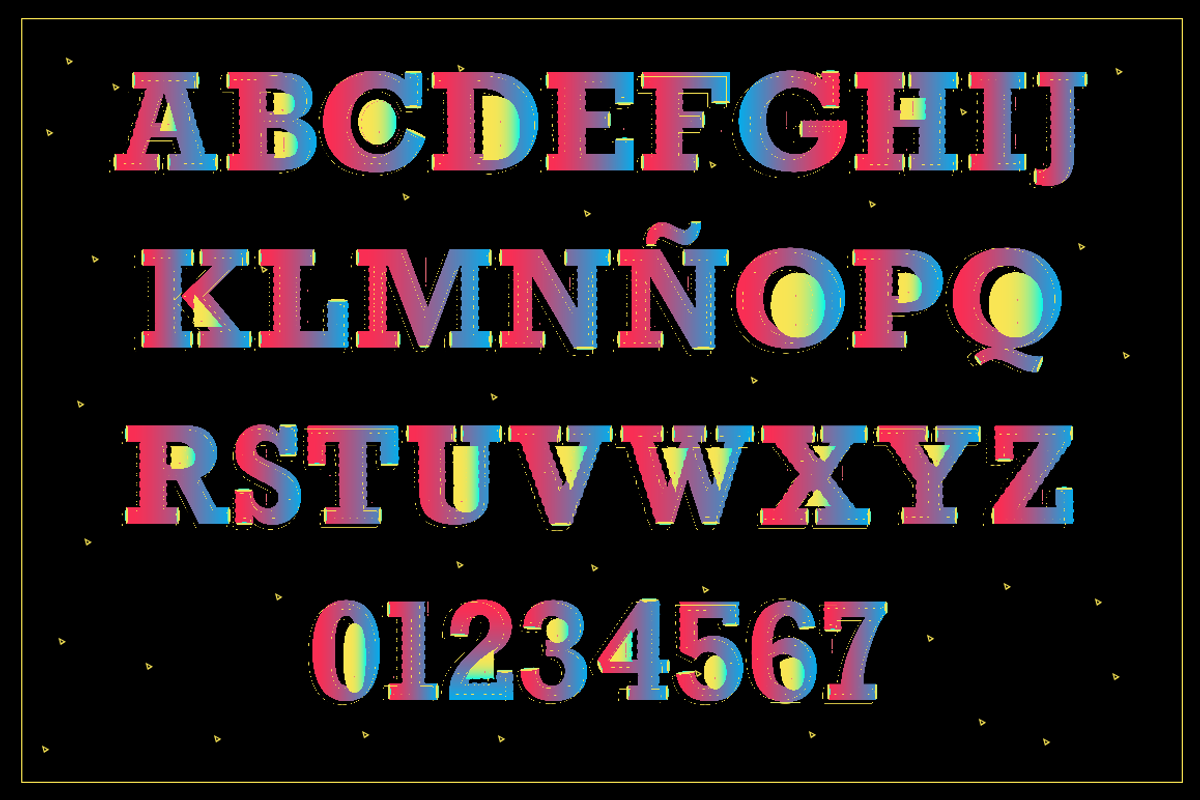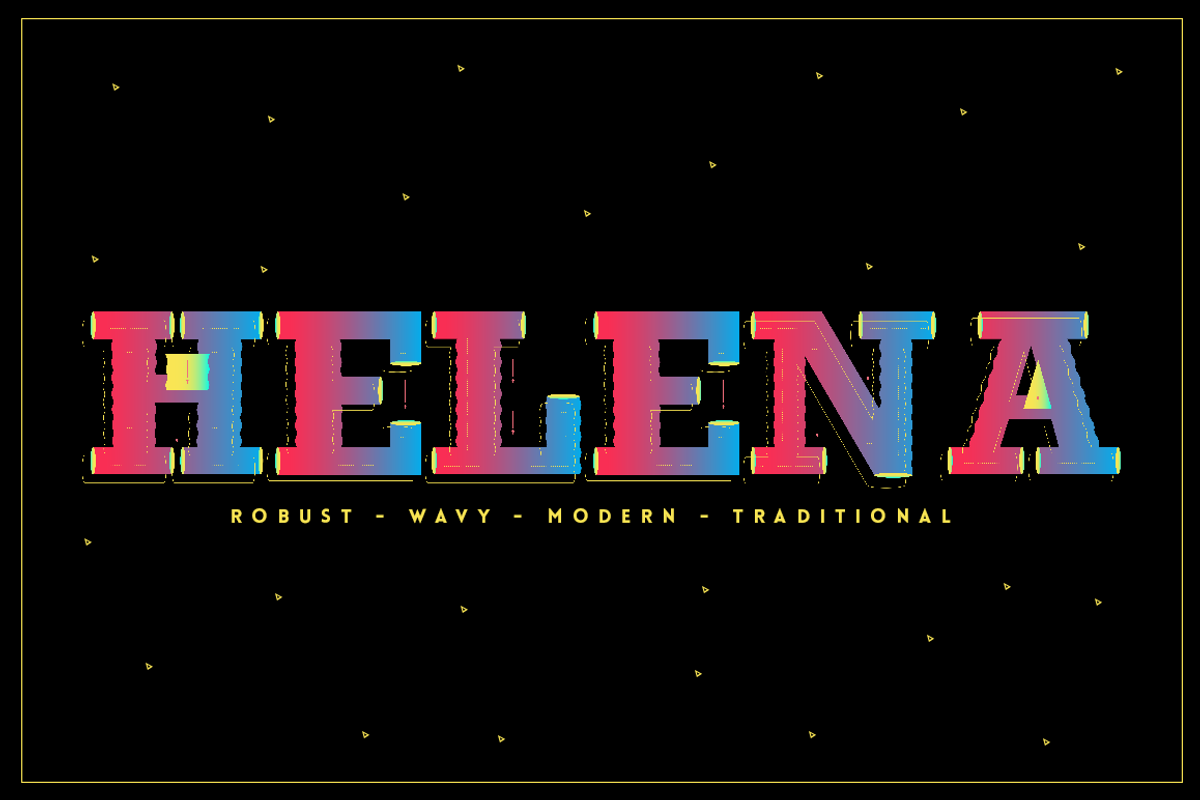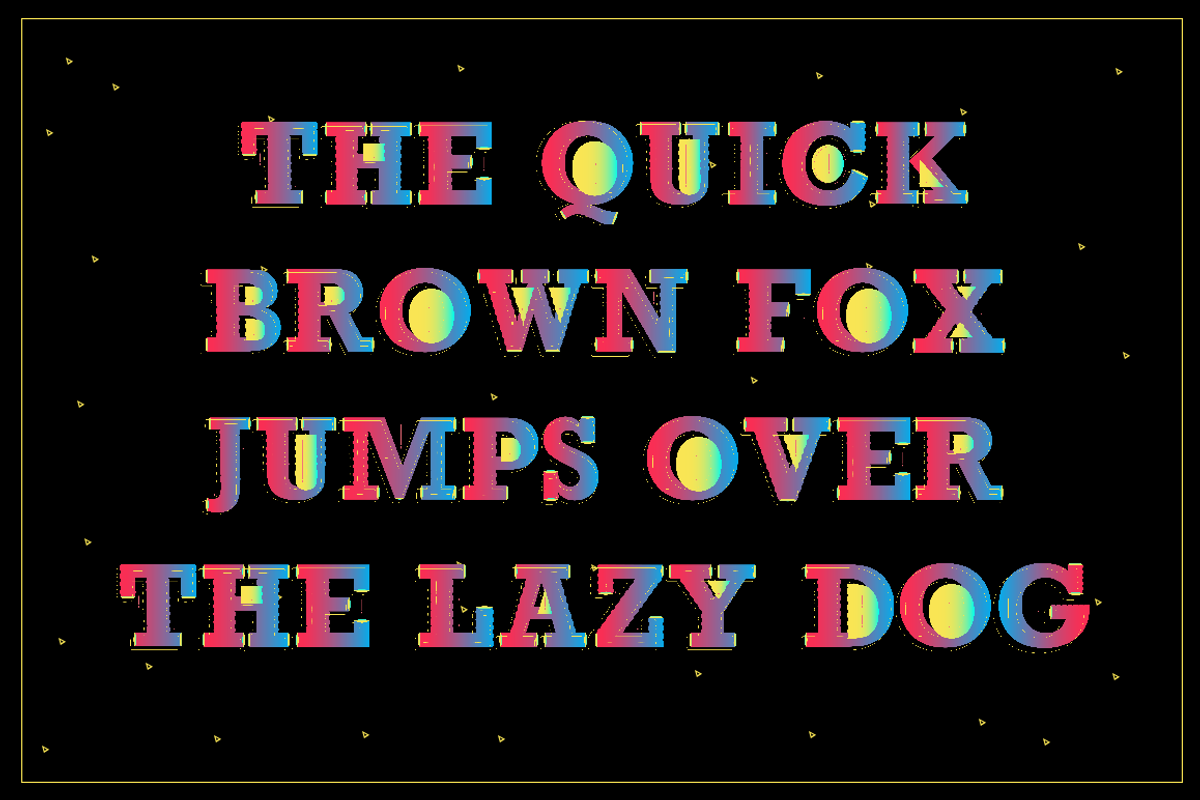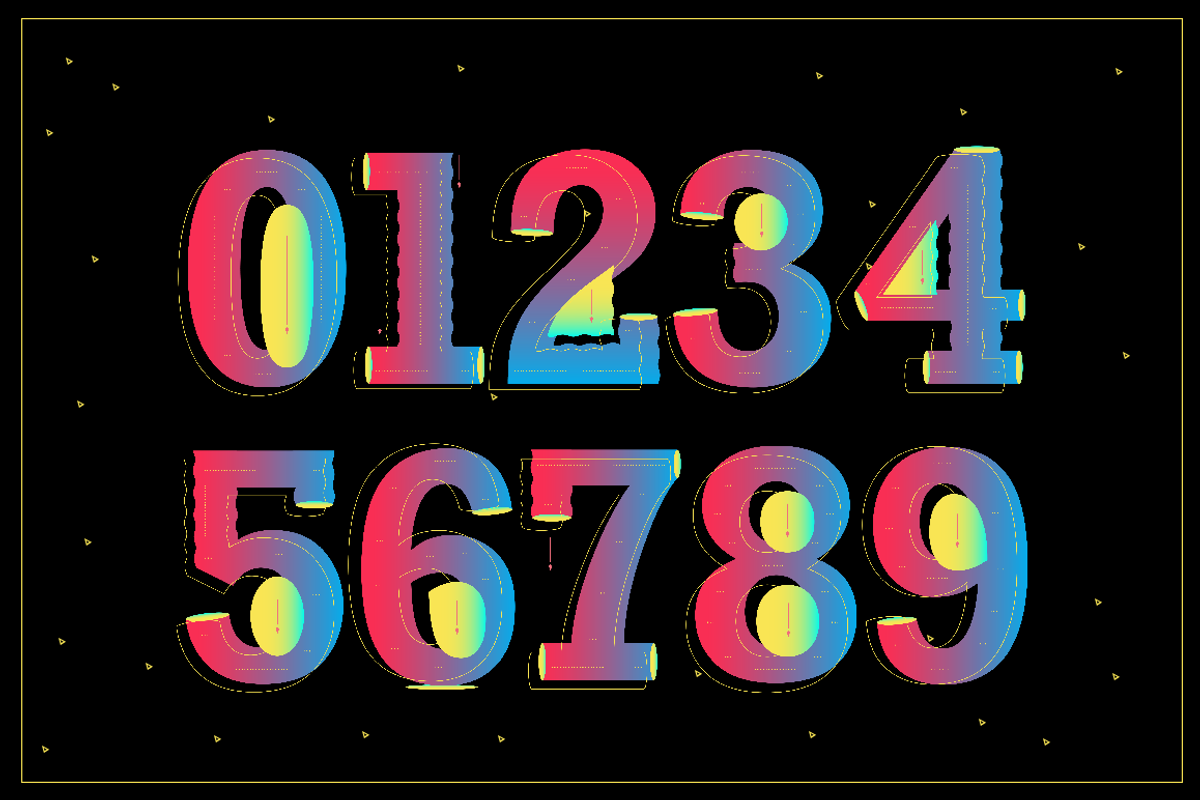
Helana Font
Helana Font by yaisalinas is a font selected for branding, posters, packaging, typography.
Why Helana Font is worth a look
Helana Font by yaisalinas fits naturally into Branding, posters, packaging, typography.